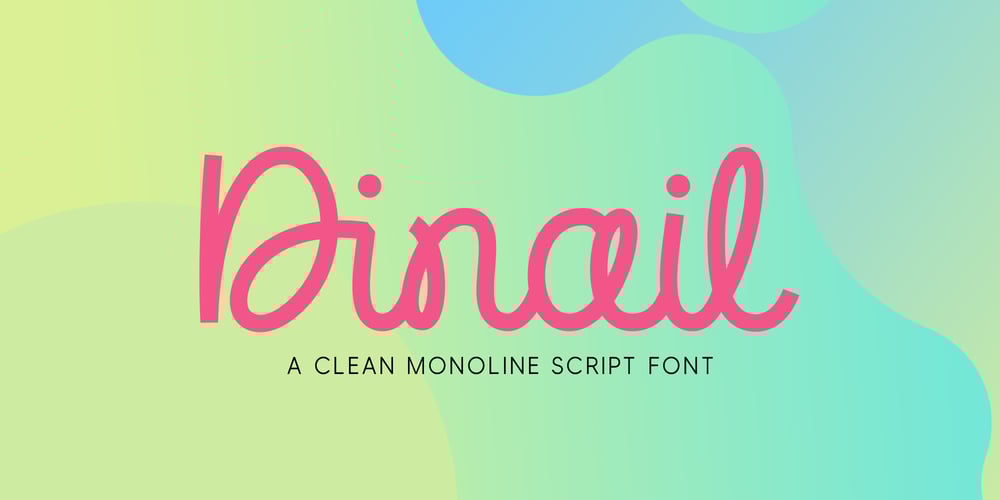
Dinail Font Family was designed by Dwi Ahidian and published by Lemonthe. Dinail contains 1 styles and family package options. Dinail is a script font that captures attention with its unique and modern style. Each letter flows smoothly, creating a clean and elegant appearance. With its monoline writing style, this font adds a fresh and trendy touch. Suitable for various designs such as logos, branding, product packaging, business cards, greeting cards, invitations, and more.